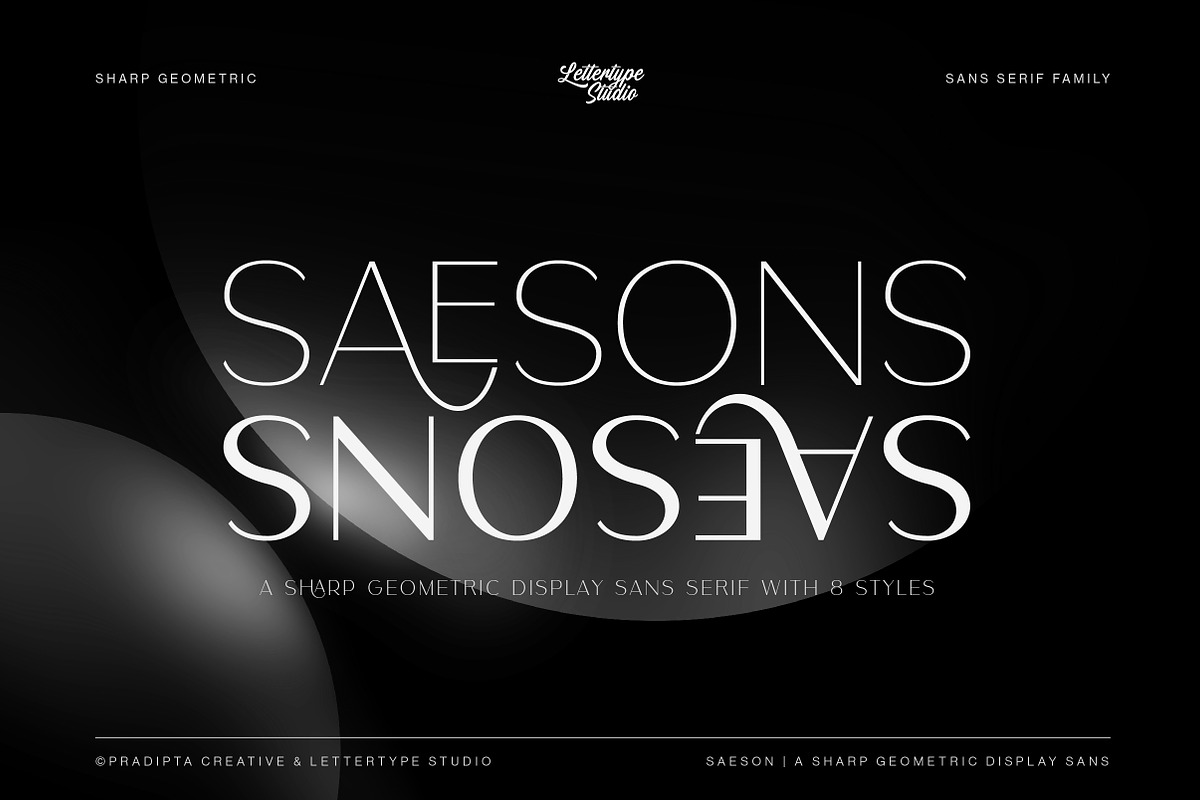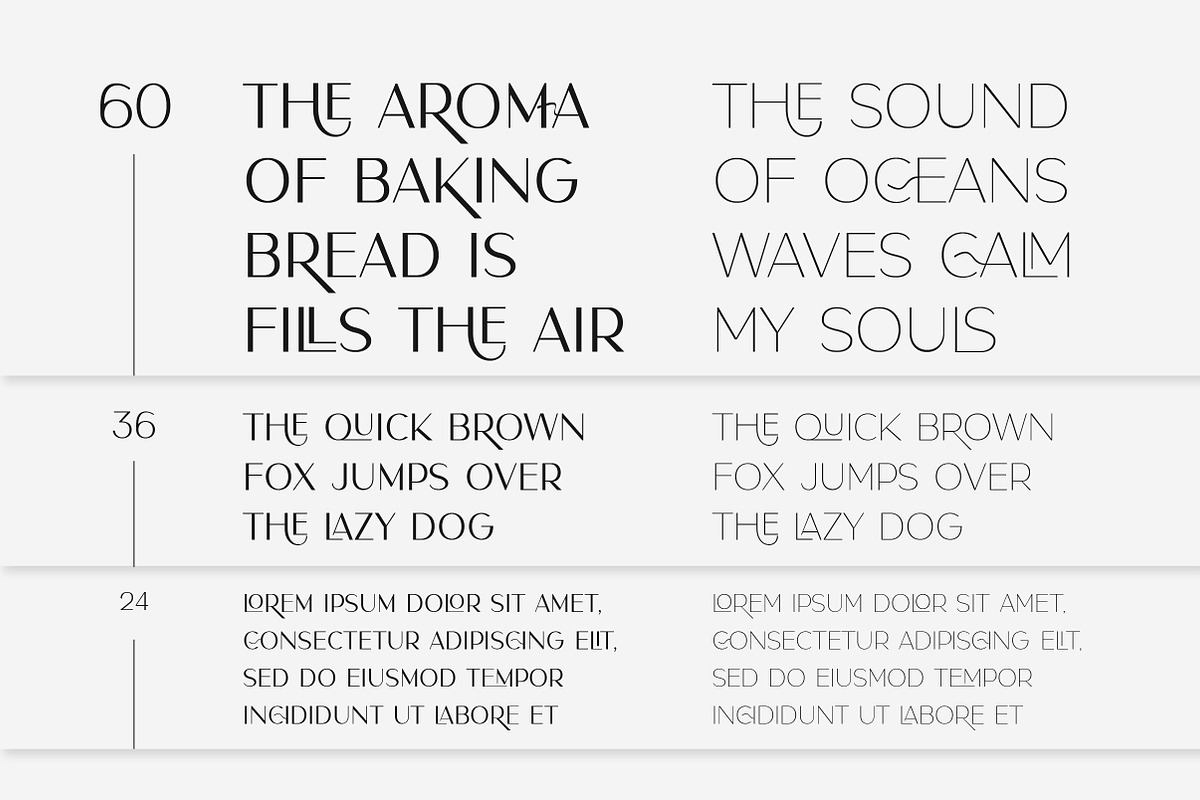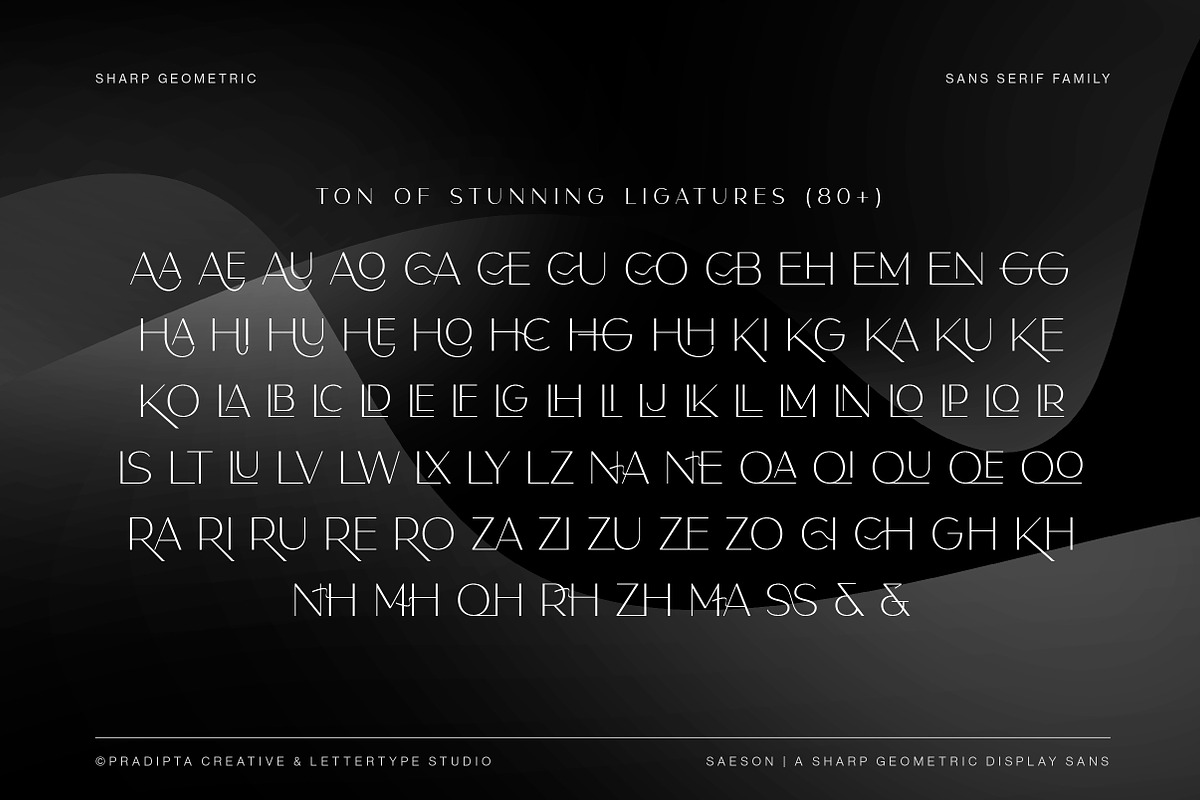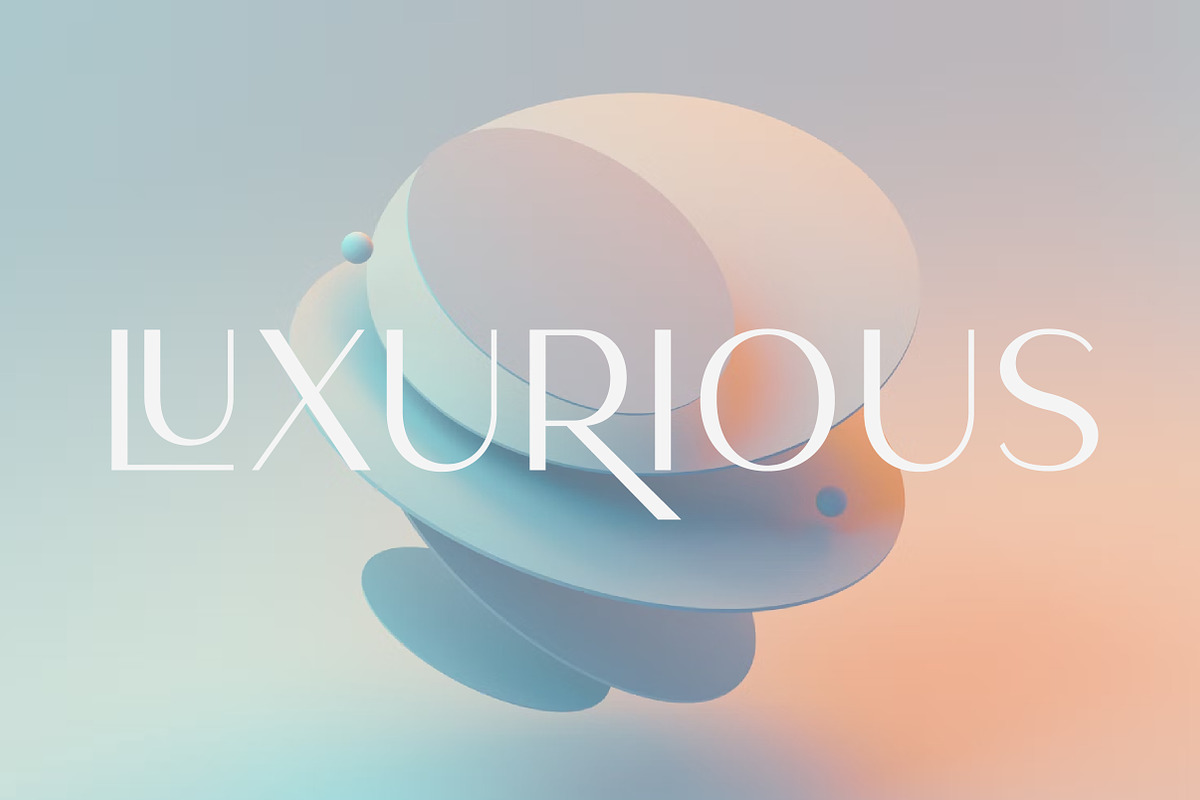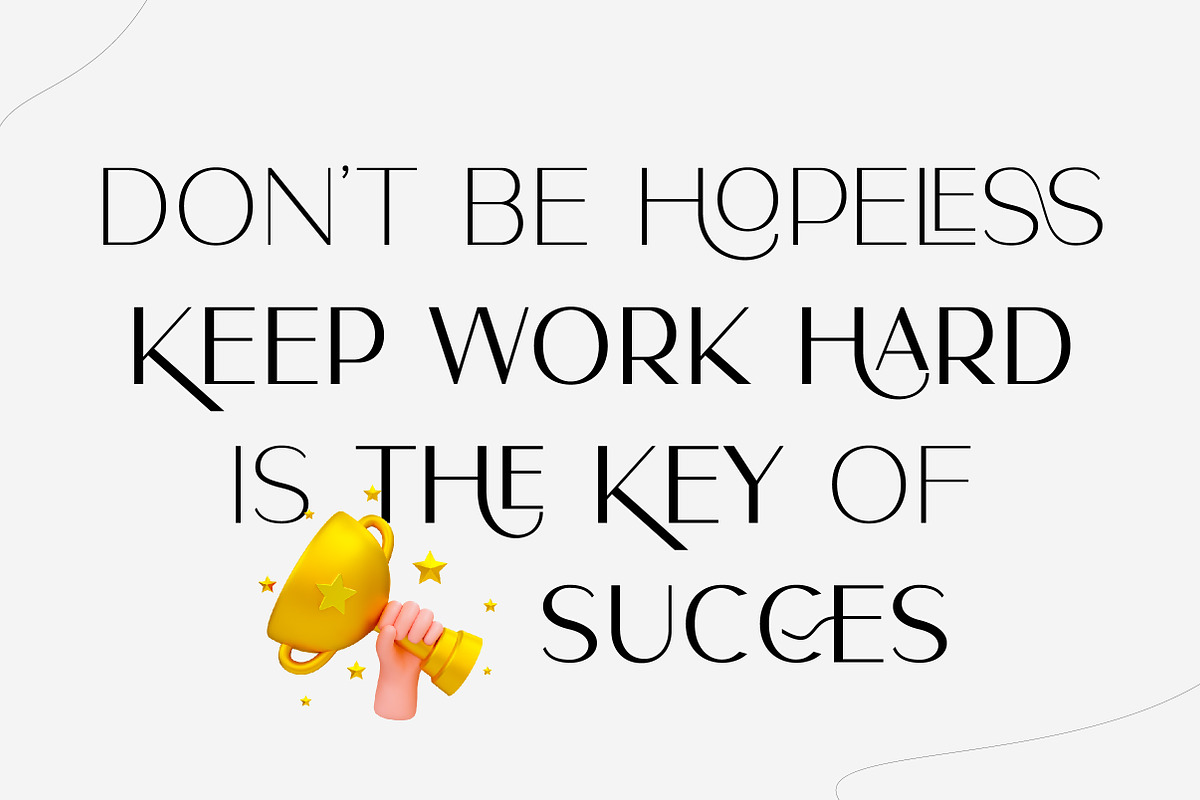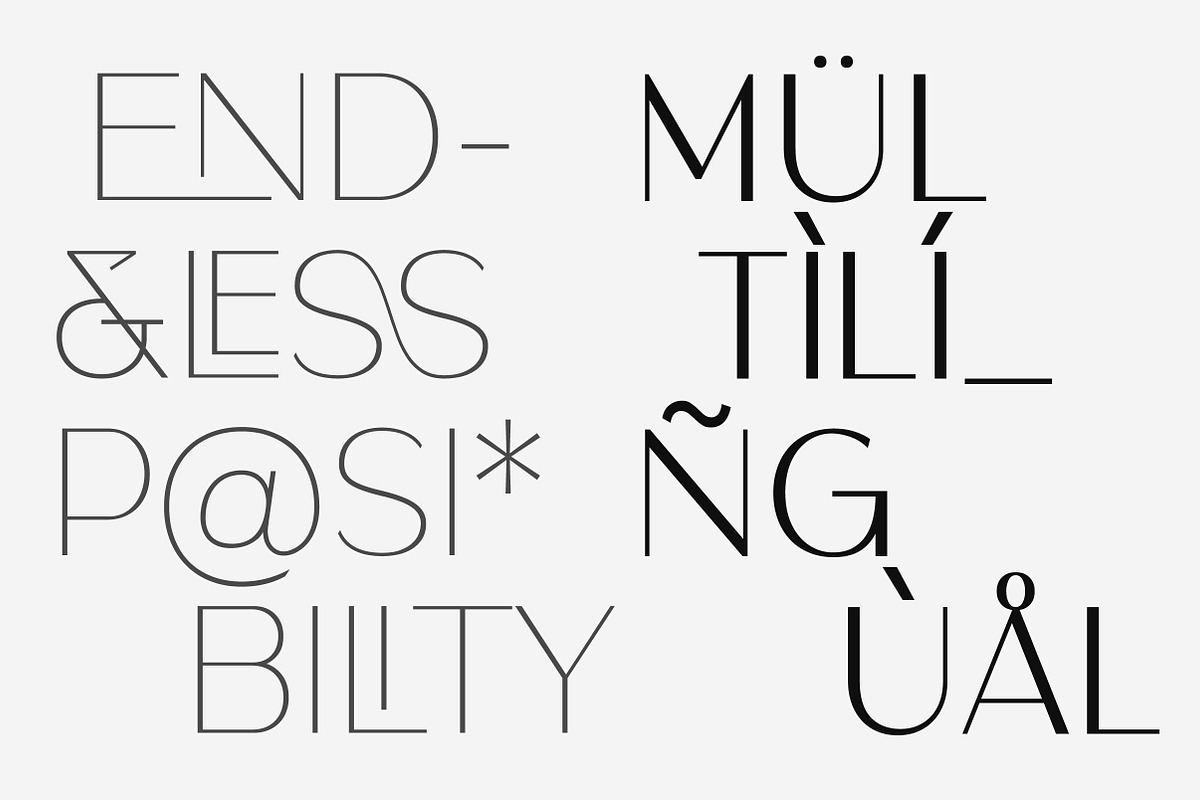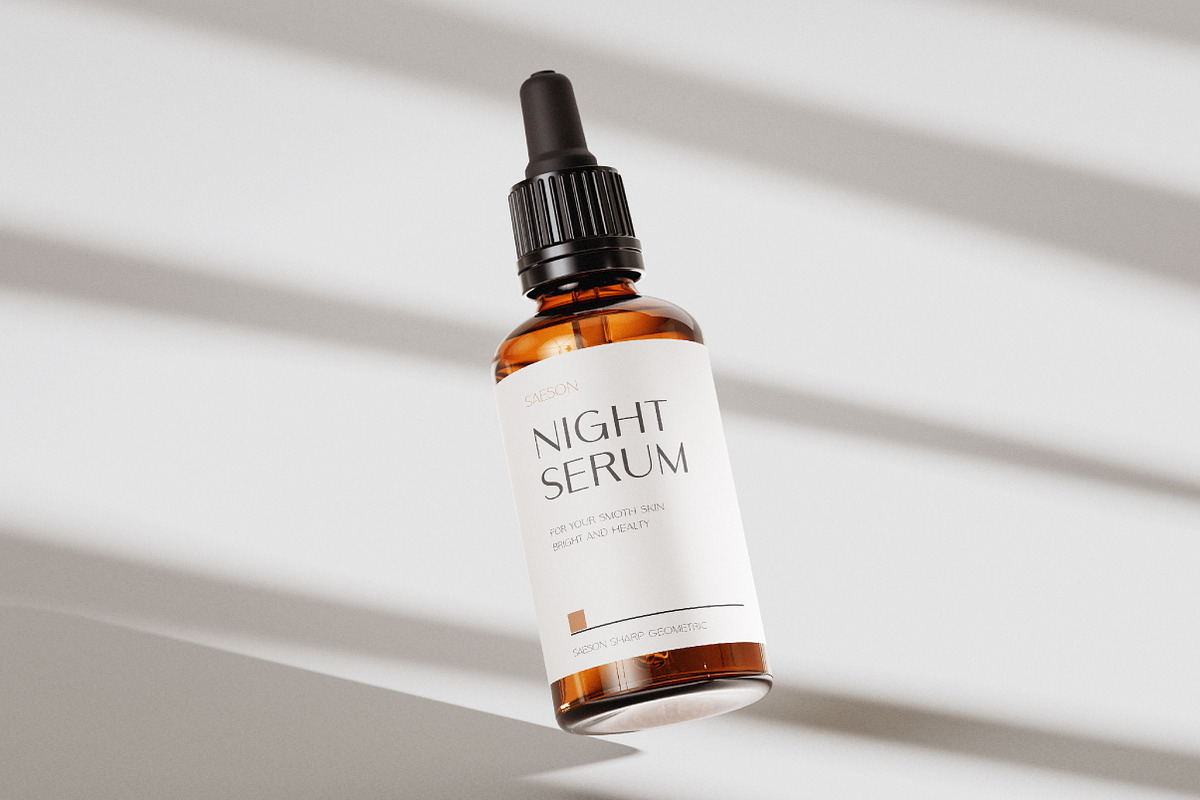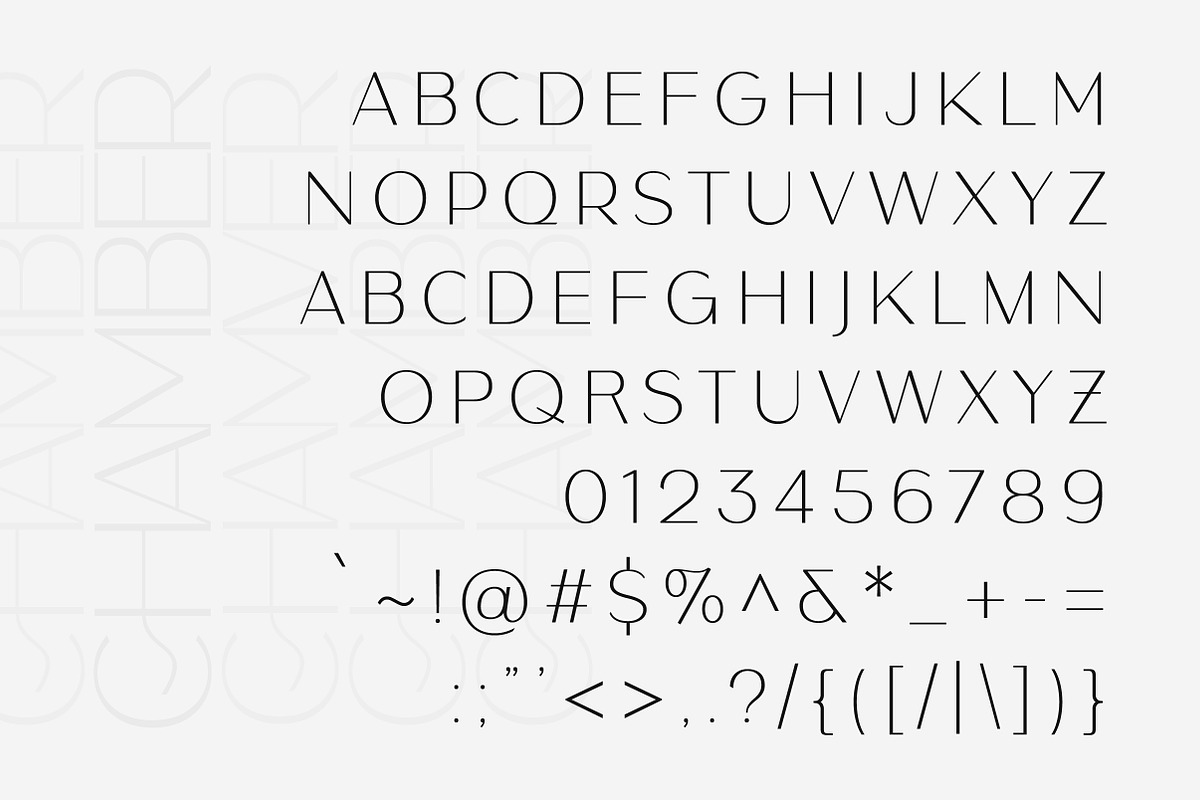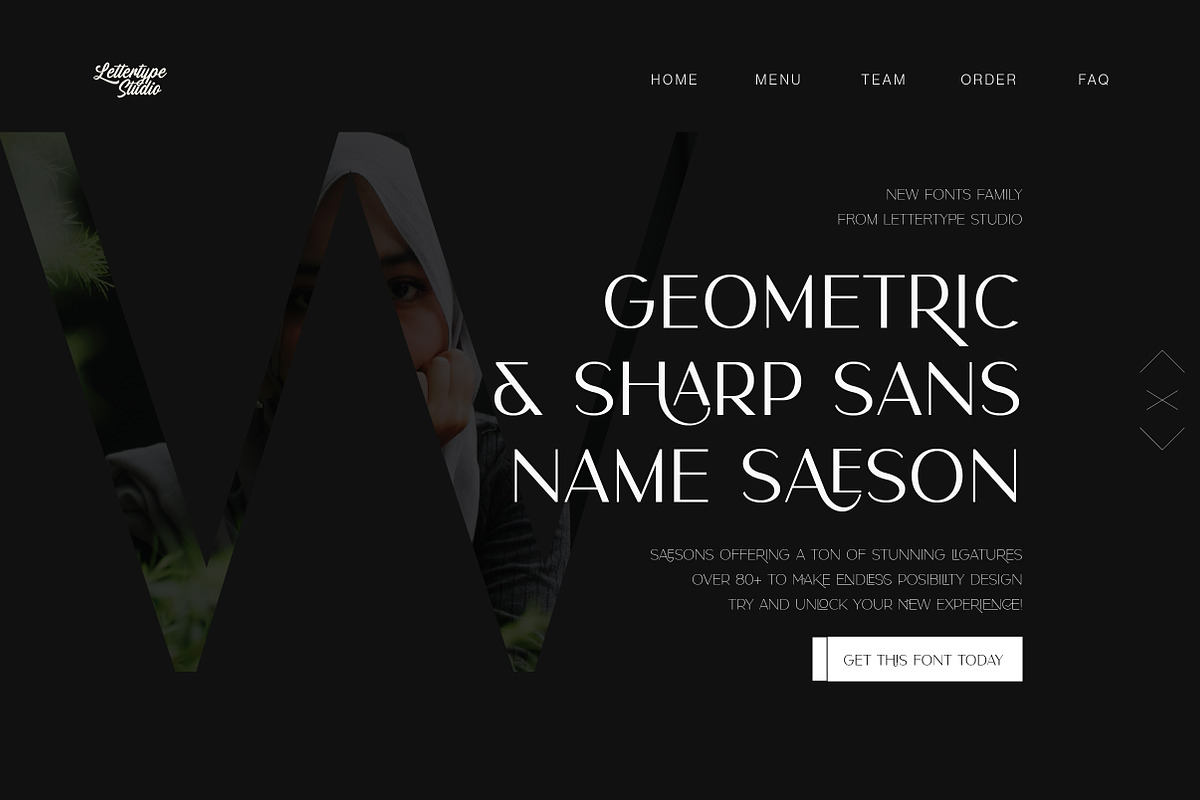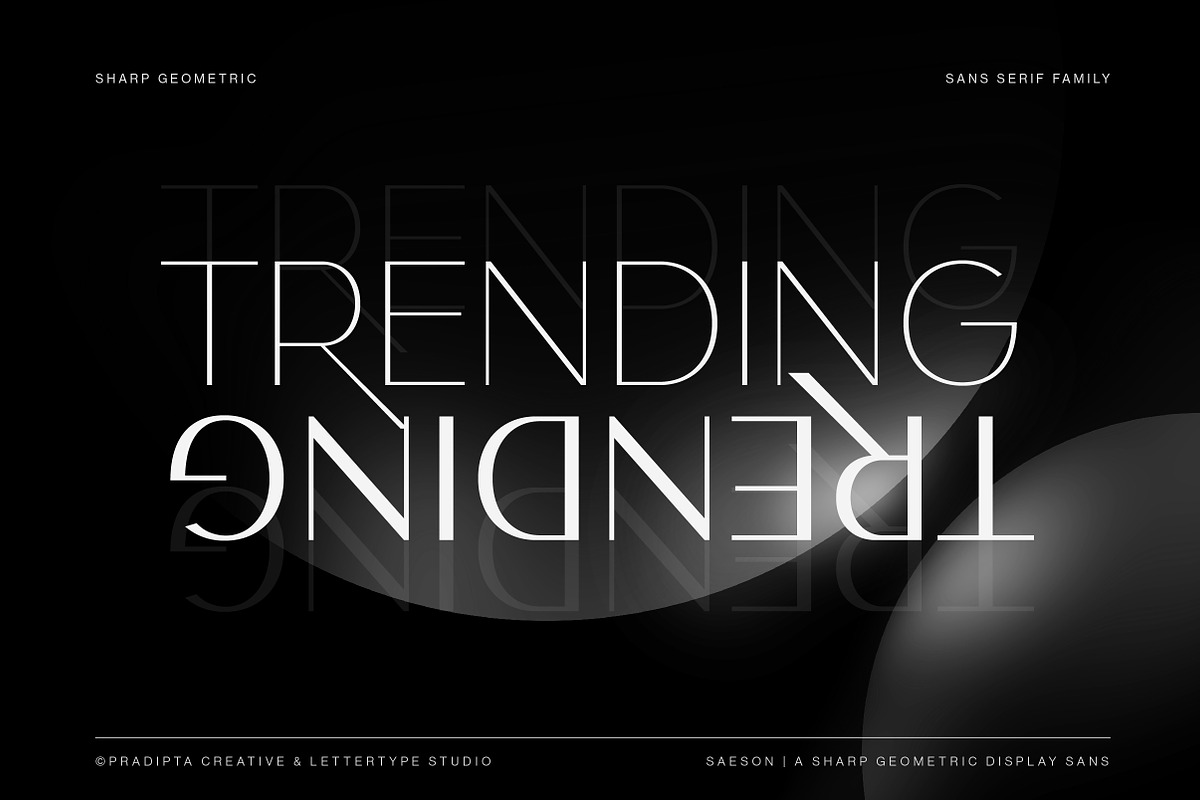
Saeson a Sharp Sans Serif Family
Saeson is a Sharp Geometric Display Sans Serif with a ton of customization for your unique and standout designs. Saeson has over 80+ alternate glyphs for endless customization and creativity to control your projects.
This font is will be perfect for web design, photography, watermarks, social media posts, advertisements, logos and branding, invitations, product designs, labels, stationery, wedding designs, product packaging, sub-headers or headers, special events, or anything else.
Saeson Features:
- 8 font styles
- 80+ alternate glyphs
- 476 glyphs
- 260+ languages support
- Bold logos, creative wordmarks & standout headlines
- Fashion branding, lifestyle packaging & digital posters
- Web design, social media graphics & visual identities
- Invitations, stationery, and artistic product design
- Modern editorial layouts & promotional campaigns